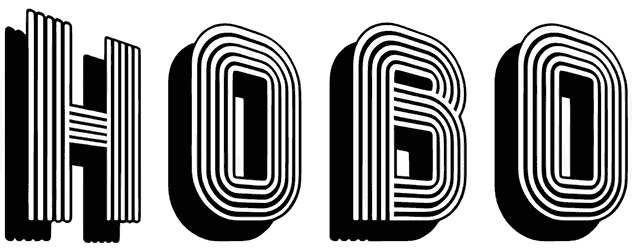
Hobo Font
If you are going for a groovy look that radiates disco vibes, Hobo is your guy! All the characters in this groovy font are designed with bold and linear elements that give out a fun but powerful sense to the reader. This…
If you are going for a groovy look that radiates disco vibes, Hobo is your guy! All the characters in this groovy font are designed with bold and linear elements that give out a fun but powerful sense to the reader.
This disco font can be used to write event announcements, movie titles, shop flyers, retro albums, and product packaging. The groovy style can be seen through an uppercase set, and the font lacks lowercases.